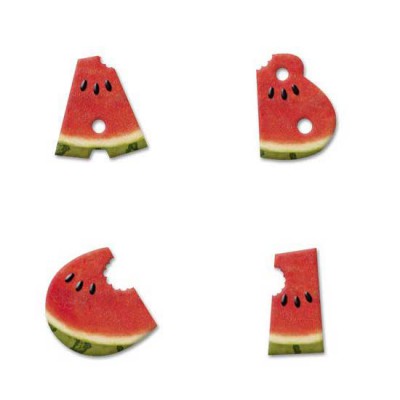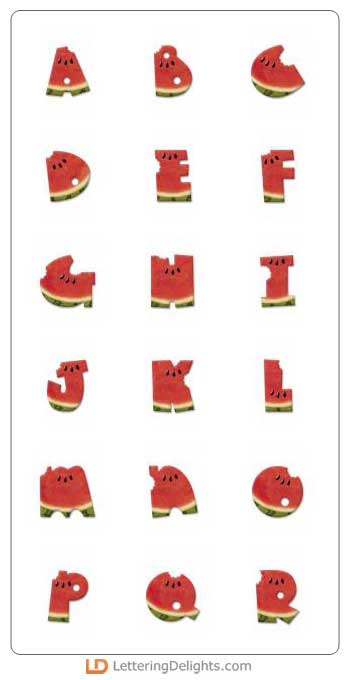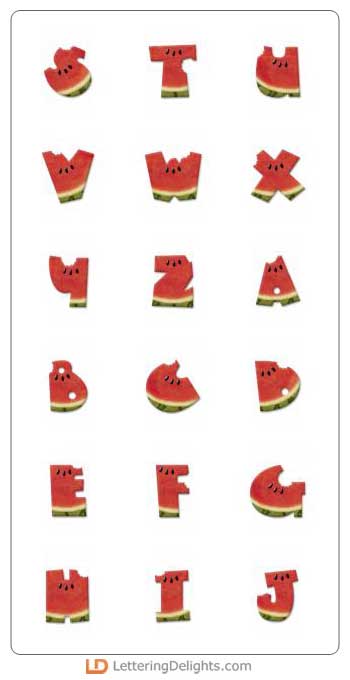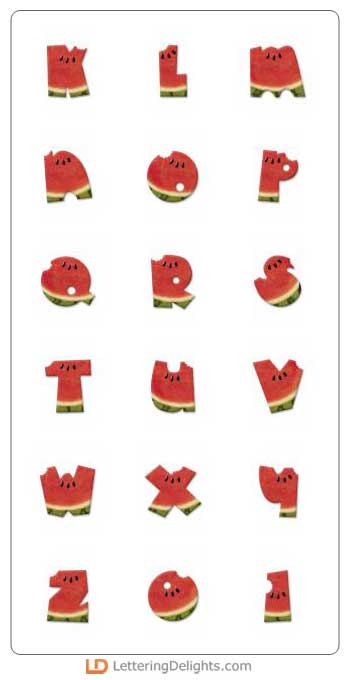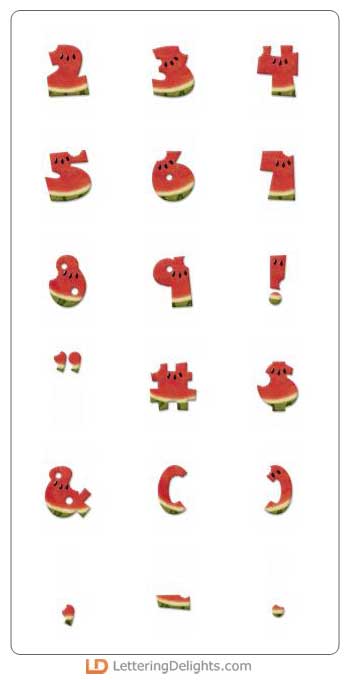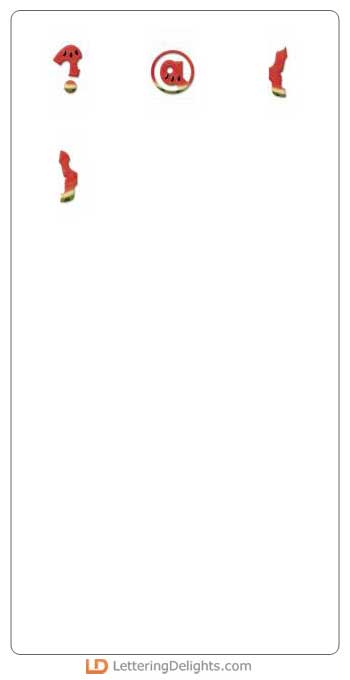
Watermelon - AL
Someone's already taken a bite out of this delicious watermelon. Each letter is "cut out" of a piece of watermelon. It's time for a picnic!